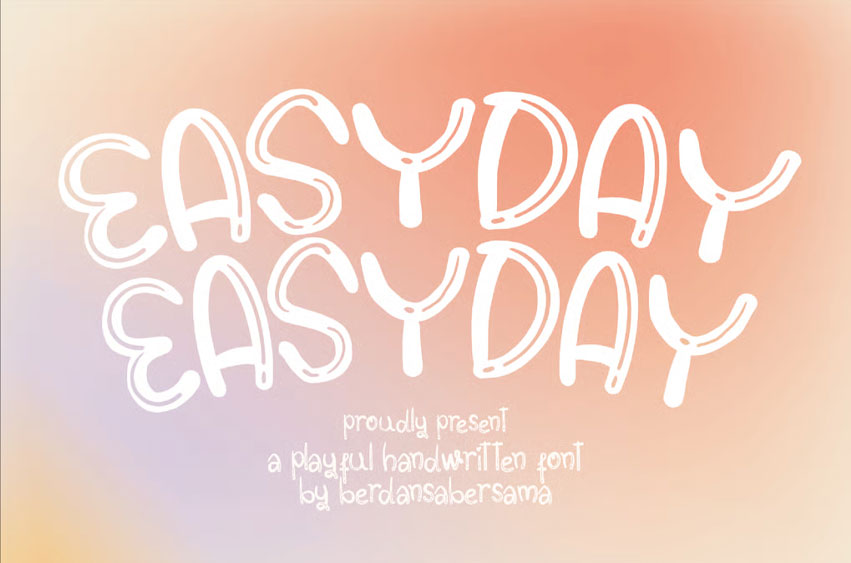
Easyday Font is a cheerful handwritten font with a fun, casual rhythm that radiates positivity.
Its rounded outlines and playful curves give it a lively personality, perfect for modern, youthful designs.